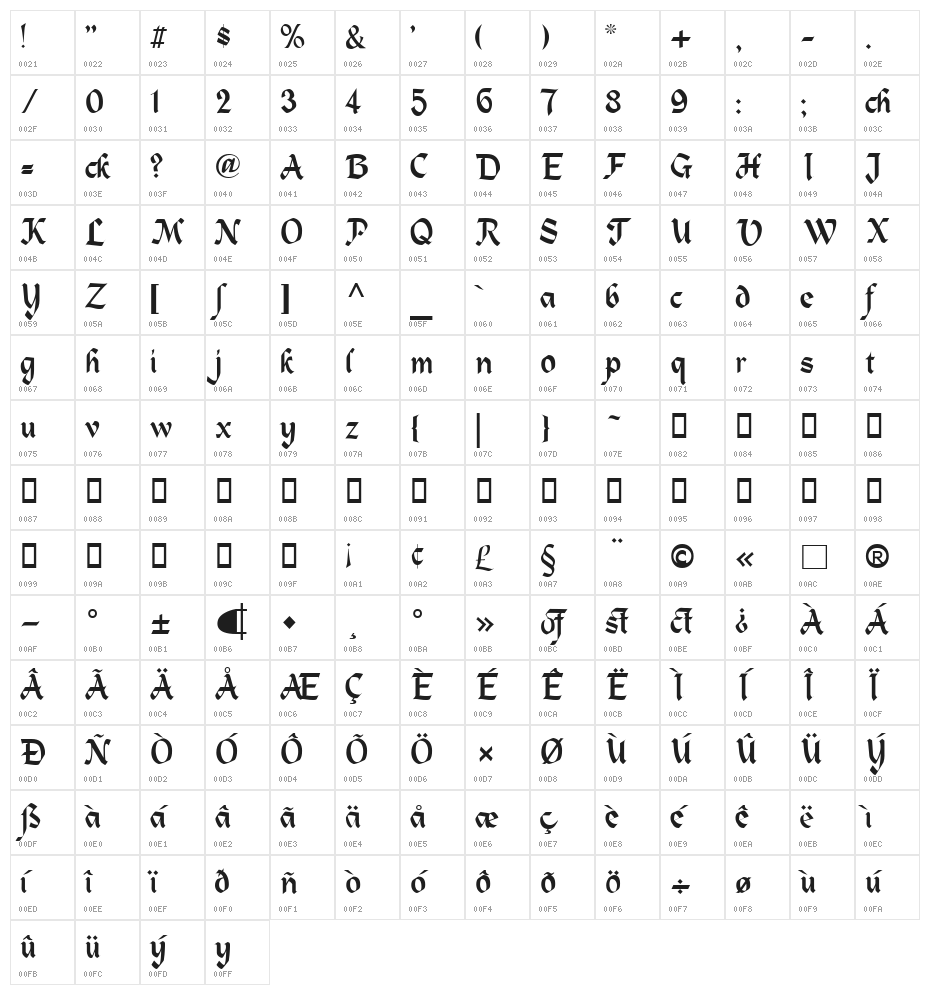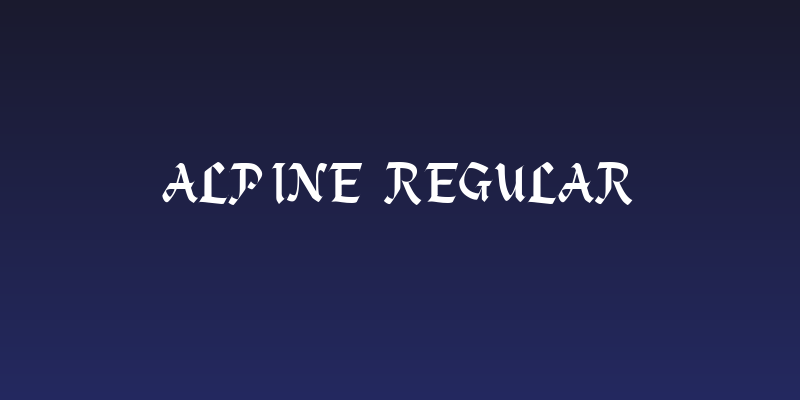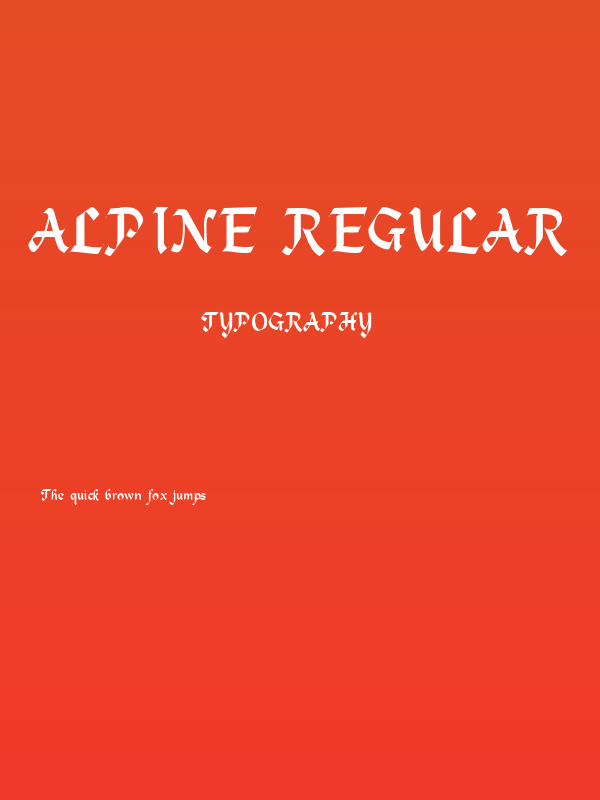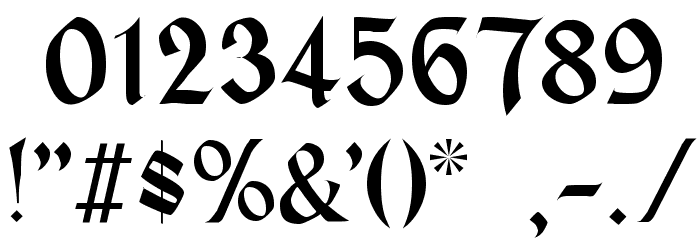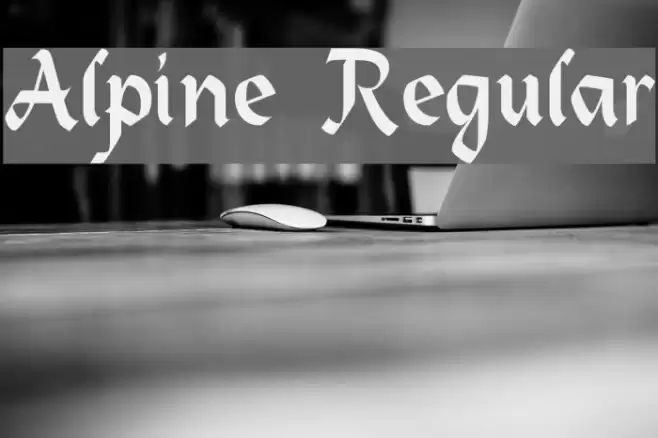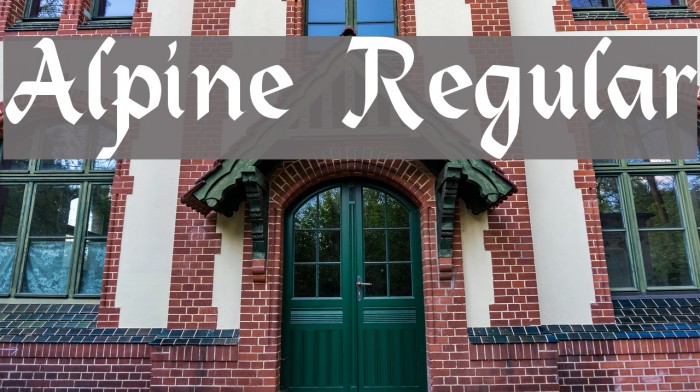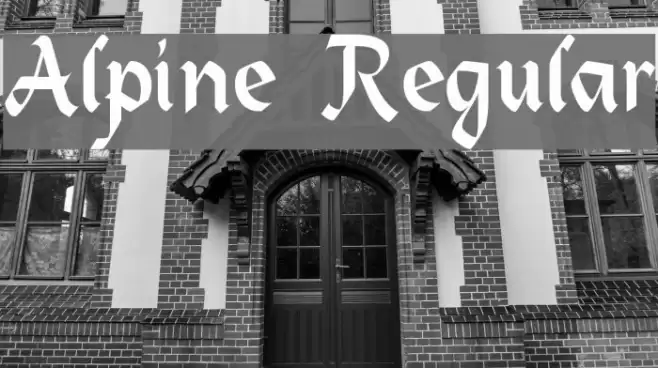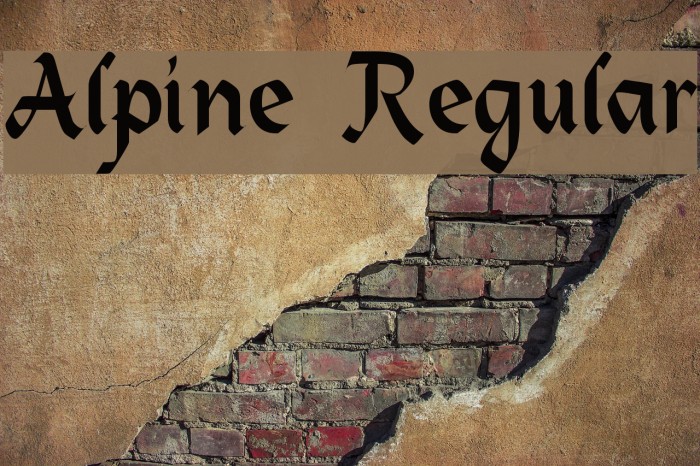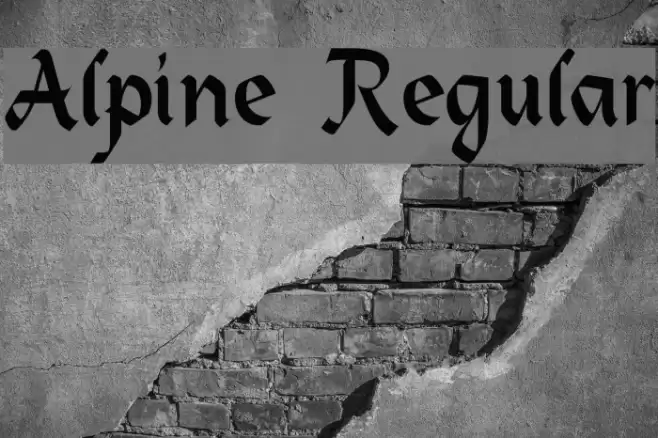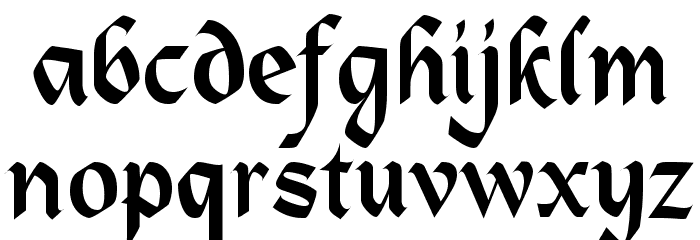
Alpine Regular Font
Alpine Regular Description
This font features a bold and dramatic style reminiscent of traditional blackletter typefaces. The characters are sharply angled with thick strokes and pointed serifs, creating a sense of strength and authority. The uppercase letters are particularly striking, with a medieval flair that adds a historical touch. The lowercase letters maintain the same boldness, ensuring consistency throughout the text. Numbers and special characters are equally robust, making them stand out in any design. This font is ideal for projects that require a classic and impactful appearance.
| Overall Style | Classic |
| Use Case | Logos, Headlines, Posters |
| Proposed Projects | Perfect for historical or medieval-themed designs, logos, posters, and book covers. |